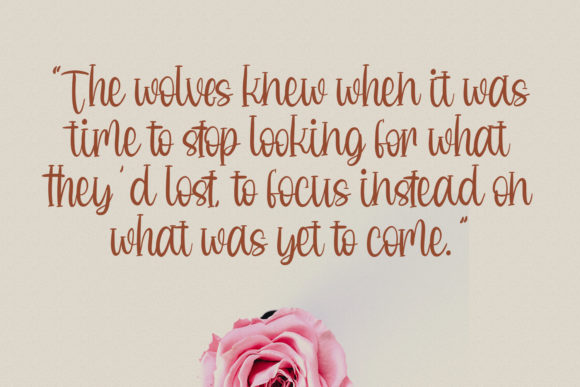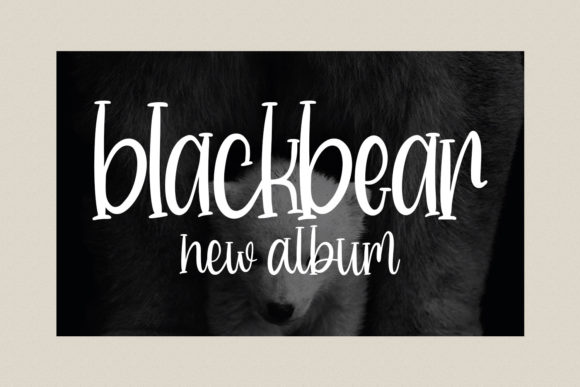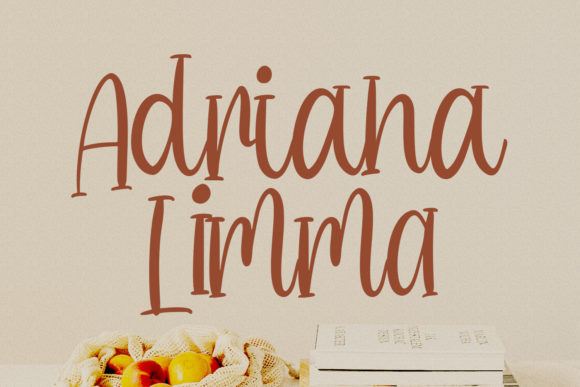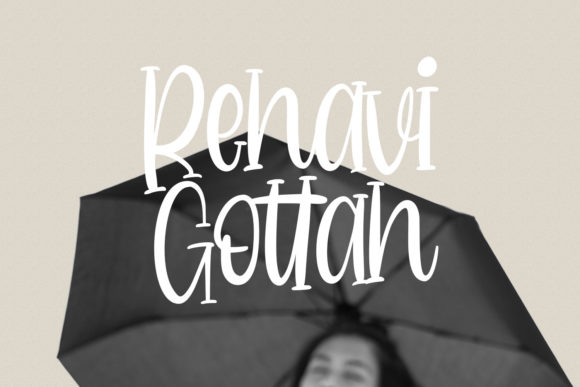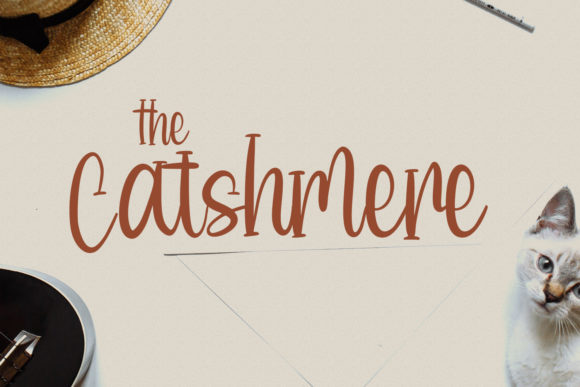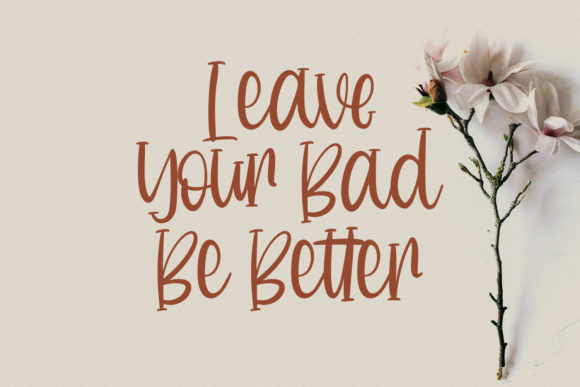
Introducing Everyday Hungry Font: A Quirky Script Font to Elevate Your Designs
Are you tired of using the same old fonts in your designs? Do you want to add a touch of personality and whimsy to your creations? Look no further than the Everyday Hungry font, a quirky script font that’s sure to bring a smile to your face. With its medium contrast strokes, fun characters, ligatures, and alternates, this font is perfect for designers and crafters looking to add some extra creativity to their work.
What Makes Everyday Hungry Font So Special?
Everyday Hungry is a unique and eye-catching font that’s designed to add a touch of playfulness to any design. Its quirky script style features medium contrast strokes, which give it a distinctive and charming look. The font also includes a range of fun characters, ligatures, and alternates, which allow you to customize your text and make it truly one-of-a-kind.
Key Features of Everyday Hungry Font
- Quirky Script Style: Everyday Hungry features a playful and whimsical script style that’s perfect for adding a touch of personality to your designs.
- Medium Contrast Strokes: The font’s medium contrast strokes give it a distinctive and charming look that’s sure to stand out.
- Fun Characters: Everyday Hungry includes a range of fun and playful characters that are sure to add a smile to your face.
- Ligatures and Alternates: The font also features ligatures and alternates, which allow you to customize your text and make it truly unique.
- Logos and Branding: Use Everyday Hungry font to create a unique and eye-catching logo that’s sure to stand out.
- Social Media Graphics: Add a touch of personality to your social media graphics with this fun and playful font.
- Invitations and Stationery: Use Everyday Hungry font to create beautiful and unique invitations and stationery.
- Packaging and Labels: Add a touch of whimsy to your packaging and labels with this quirky script font.
- Use Ligatures and Alternates: Take advantage of the font’s ligatures and alternates to add a touch of personality to your text.
- Pair it with Other Fonts: Everyday Hungry font pairs well with a range of other fonts, so don’t be afraid to experiment with different combinations.
Everyday Hungry font is a quirky and playful script font that’s perfect for designers and crafters looking to add a touch of personality to their designs. With its medium contrast strokes, fun characters, ligatures, and alternates, this font is sure to bring a smile to your face. Whether you’re creating logos and branding, social media graphics, invitations and stationery, or packaging and labels, Everyday Hungry font is the perfect choice. So why not give it a try and see the amazing results for yourself?